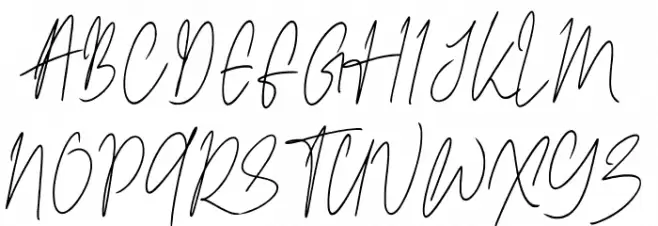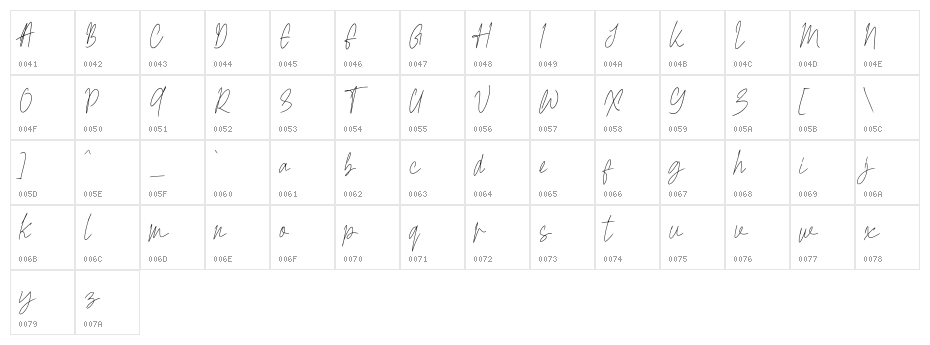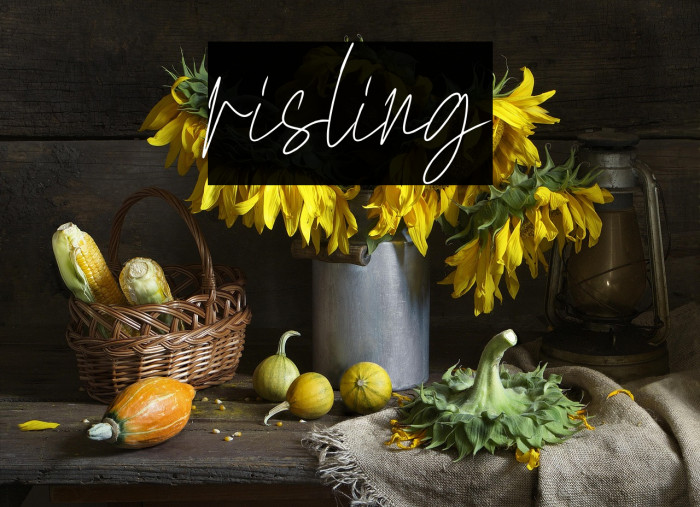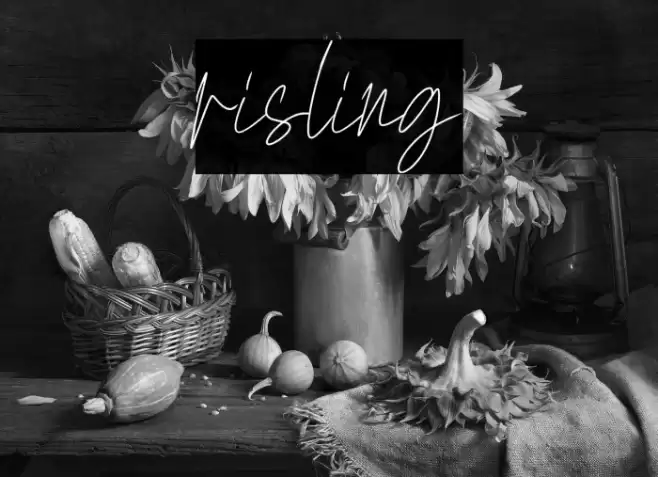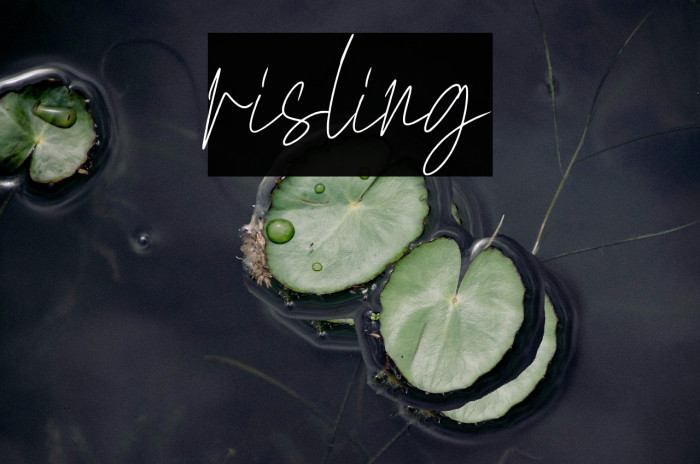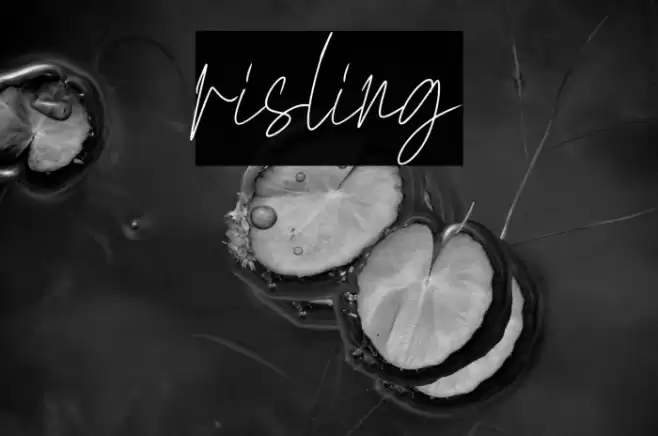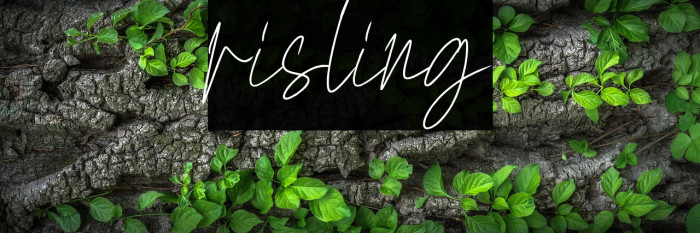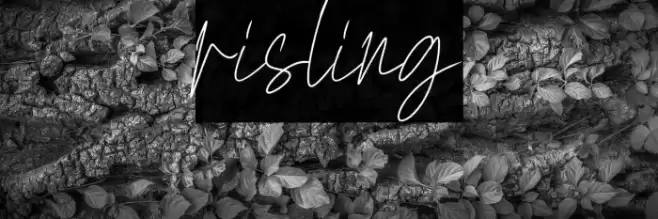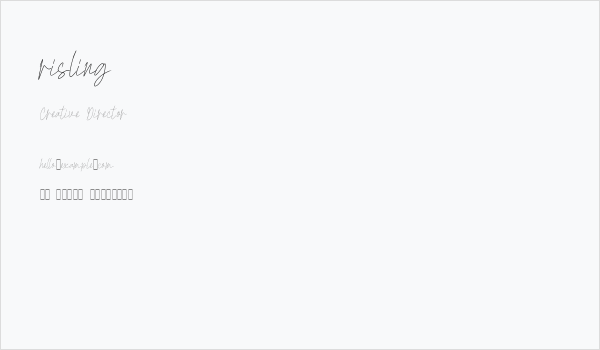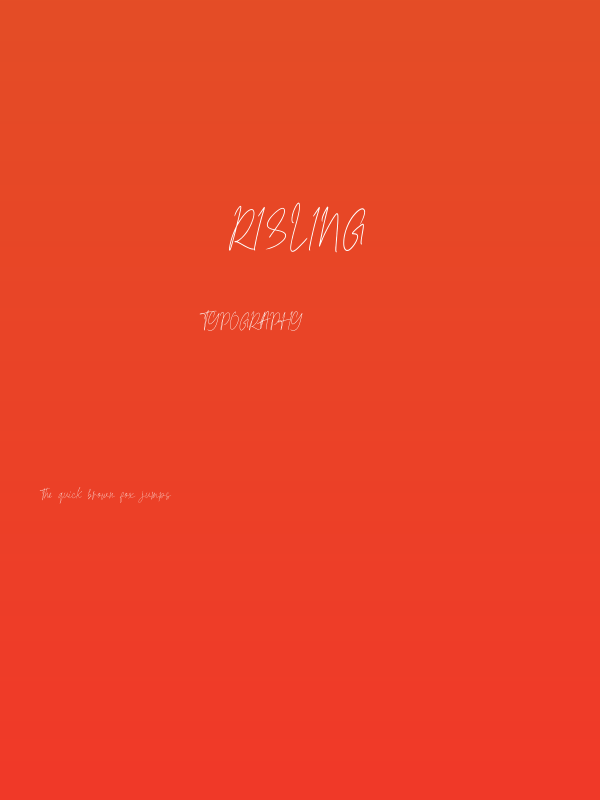
risling Font
risling Description
This font features an elegant, flowing script style that mimics natural handwriting. The letters are connected, creating a seamless and fluid appearance. The strokes are thin and delicate, giving the font a light and airy feel. It exudes a sense of sophistication and grace, making it ideal for projects that require a personal touch. The uppercase letters are slightly more ornate, while the lowercase letters maintain a consistent flow. The numbers and special characters are designed to match the overall aesthetic, ensuring a cohesive look across all text elements.
| Proposed Projects | Ideal for wedding invitations, greeting cards, personal branding, and elegant stationery. |